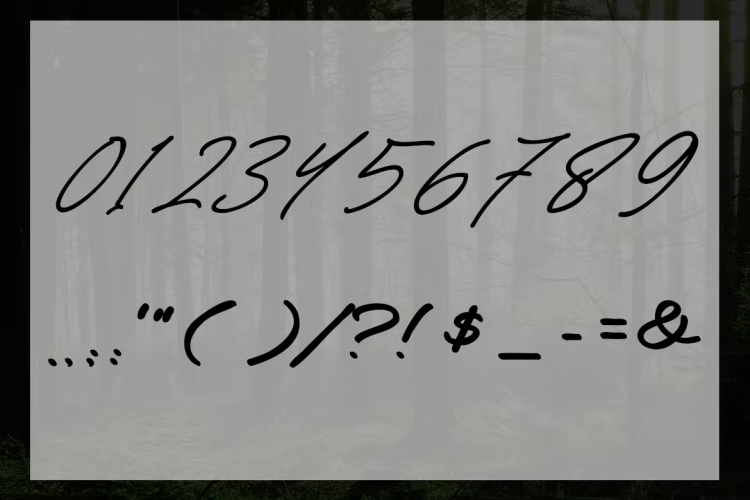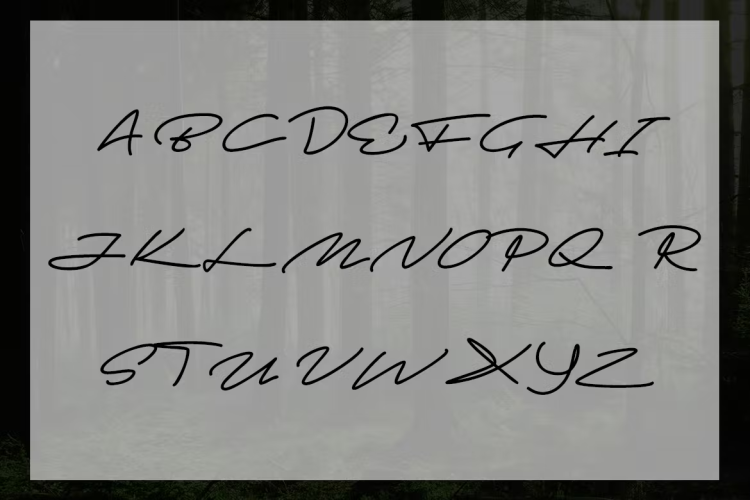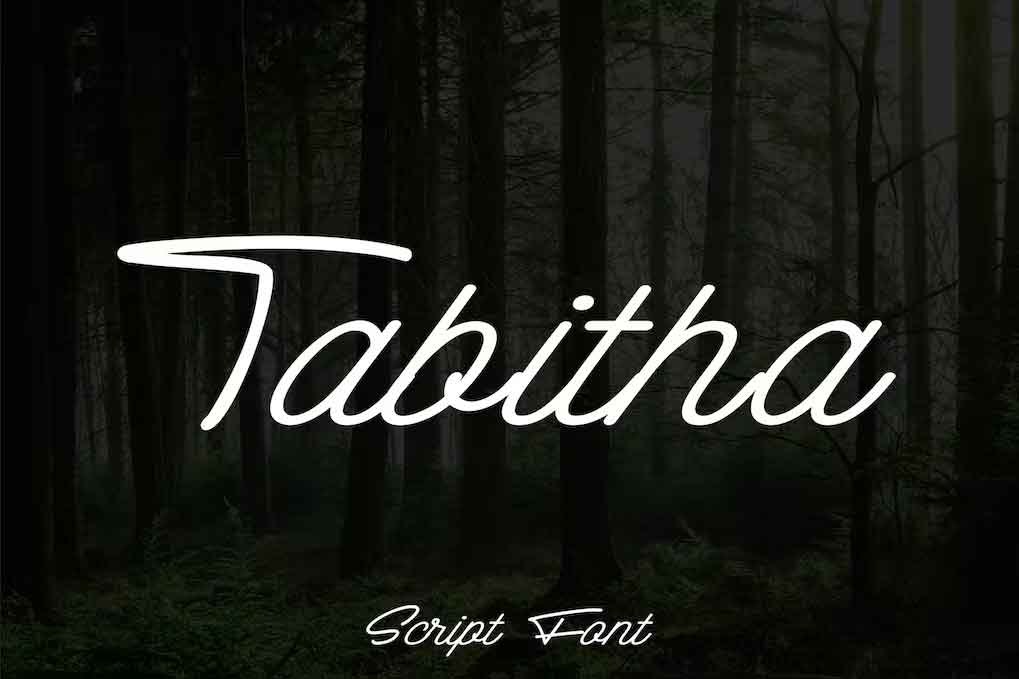
Tabitha Script Font
Introducing our new product Tabitha Script Font – Modern Font is a bold and authentic display font. The font is suitable for any branding project like logo, t-shirt printing, esport, and many more. outstanding in a wide range of contexts.
Where Tabitha Script Font works best
A short phrase in Tabitha Script Font carries warmth that a typeset sans cannot fake; keep the rest of the card plain.
Chalkboard-style headings in Tabitha Script Font make a menu feel hand-made. Keep the dish descriptions in a simple face so prices stay readable.
One line of Tabitha Script Font over a photo is enough; the script carries the tone and the caption does the work.
What kind of work does Tabitha Script Font suit?
It sits in the Script And Handwritten group and reads as bold, branding, display, gaming. That makes it a candidate wherever those qualities help: headings, packaging, social graphics and brand work. Set it at the size you plan to use before deciding.